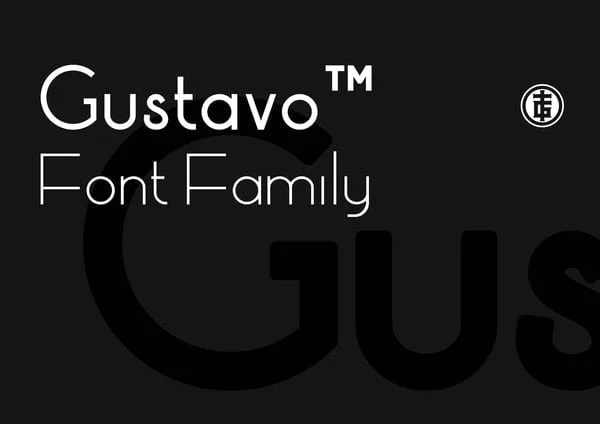
Gustavo Font
Gustavo Font Family packs a punch with the meaning ‘Staff of Gold’, inspired by the masculine name derived from the three Romance Languages – Spanish, Italian, and Portuguese. Gustavo is a sans serif font drawing on modernist influences from its slim strokes, with good legibility across a wide range of media, both on print and screen.
5 weights with true italics, suited from small text to large display sizes. Details also include 1060 characters, small caps, manually edited kerning and Opentype features.